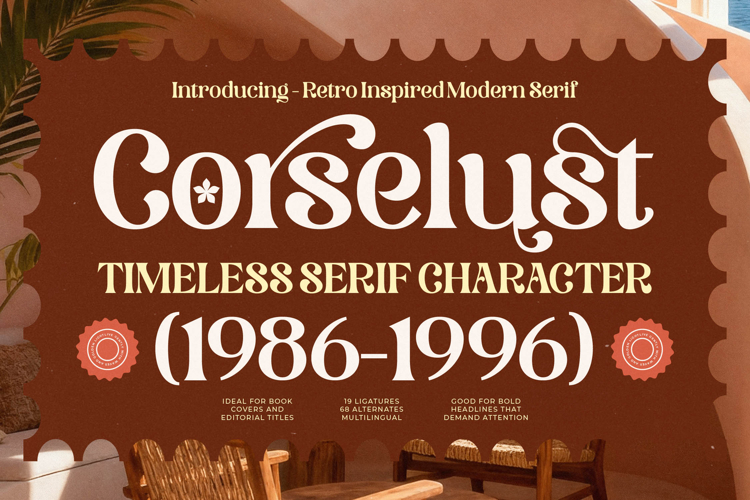
Corselust - Retro Inspired Modern Serif
Corselust is a retro-inspired modern serif crafted with bold curves, elegant contrast, and distinctive vintage character. Blending 1980s–1990s nostalgia with contemporary serif detailing, this typeface is designed to command attention in editorial layouts, book covers, branding identities, posters, and statement headlines. Each character carries a timeless charm, supported by 19 ligatures and 68 stylistic alternates that allow you to build expressive, memorable typography with strong personality and refined flair.